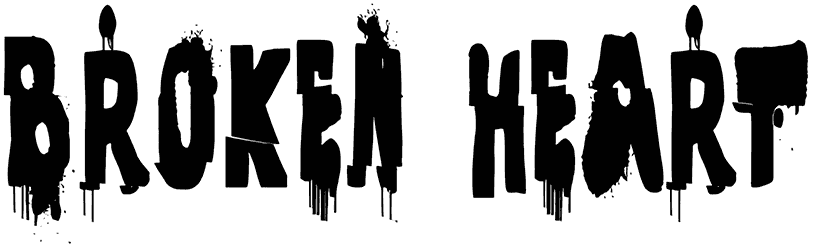
Hello Crush Font
Hello Crush font will serve a youthful and dangerous vibe for you with its sharp, blood-dripping elements. This dripping font has a set of big, handwritten letters that give off a bold and punk look to your words.
You can use it to write graffiti texts, mystery and horror movie titles, murder documentaries, and blog and channel banners. Hello Crush only supports capital characters and their lowercase letters, and the numbers are missing.
Designed by: Typefar